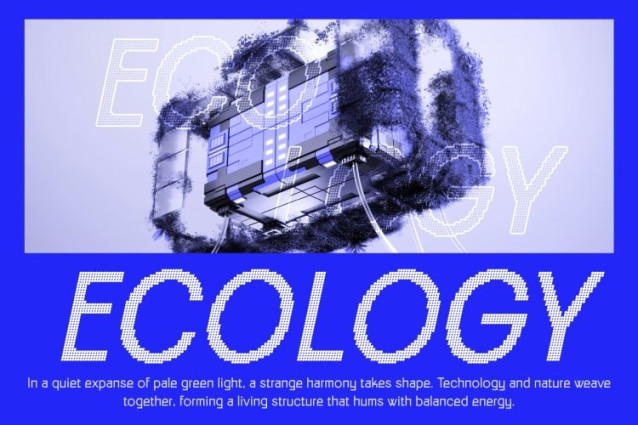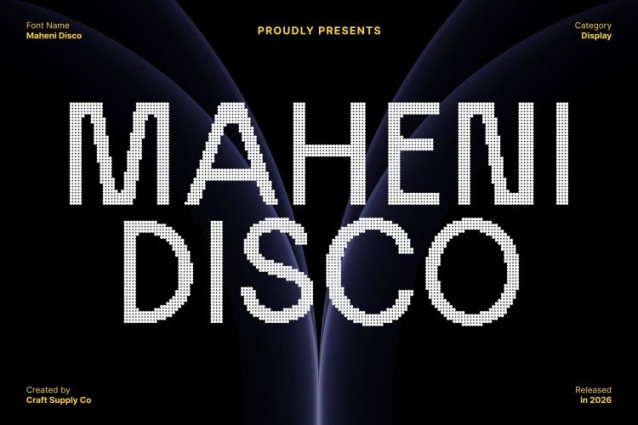
Maheni Disco Font
Maheni Disco Font This is a contemporary sans serif font inspired by the timeless clarity of grotesque typography. Its clean lines and simple forms honor classic sans serif foundations, while subtle disco-influenced proportions introduce a sense of movement and modern energy refined, not loud.
Low Contrast for Clear, Confident Readability
Designed with low contrast and balanced stroke widths, delivers excellent legibility across both print and digital media. Each character remains clear and distinct, making it ideal for interfaces, editorials, and branding that demand precision and clarity.
Minimalist Style with a Lively Edge
This font embraces minimalism through its restrained shapes and uncluttered construction. The added disco rhythm brings a fresh, contemporary feel, allowing designs to stay clean and sophisticated while still feeling alive and current.
Versatile for Clean, Modern Design Systems
Perfect for branding, advertising, editorial layouts, adapts effortlessly to a wide range of applications. Whether used for logos, headlines, or body text, it offers a balanced blend of minimal elegance, modern function, and subtle disco energy.